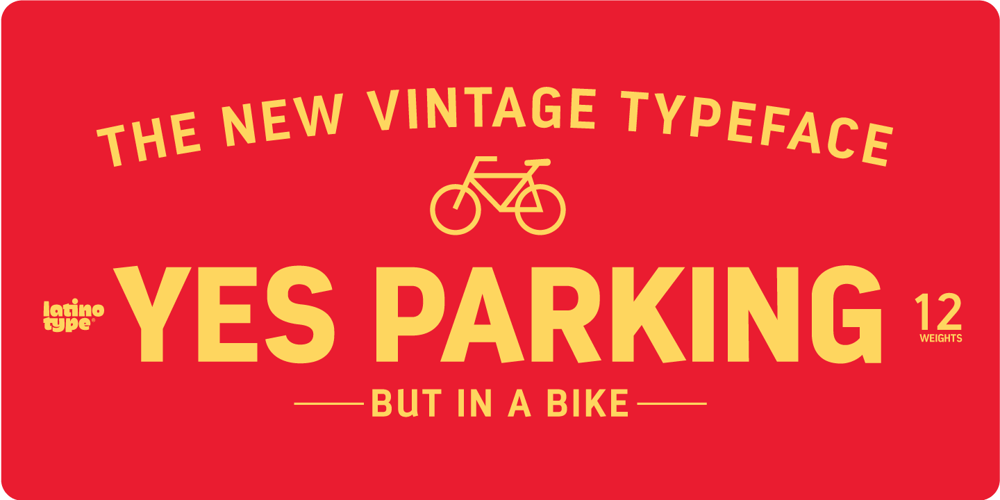
Estandar
Estandar font
Estandar Font Family was designed by Luciano Vergara and published by Latinotype. Estandar contains 13 styles and family package options. Estandar is a retro and vintage wayfinding sans serif font, inspired by old signal in central park and Europe.